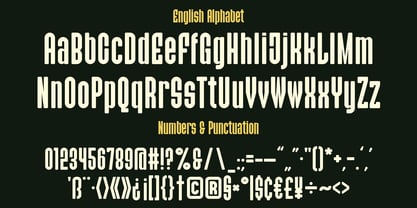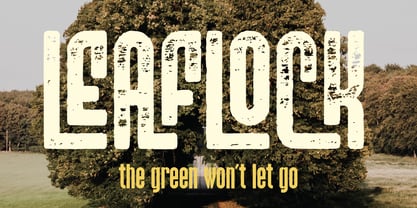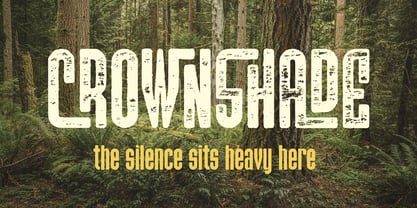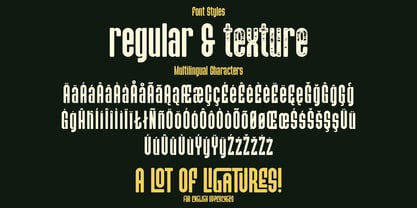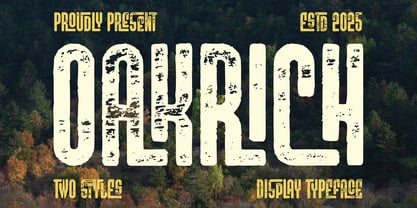
Oakrich
by Vozzy
The Oakrich Font Family was designed by Oleg Voznyy and published by Vozzy. Oakrich contains 2 styles and family package options. More about this family
I am pleased to present a new font called “Oakrich”. It is a unique font for headlines, accent inscriptions, and for attracting attention! It contains additional characters, punctuation marks, multilingual characters, and a large number of standard ligatures (make sure your software supports this open type feature). This font will look great on your beautiful designs!